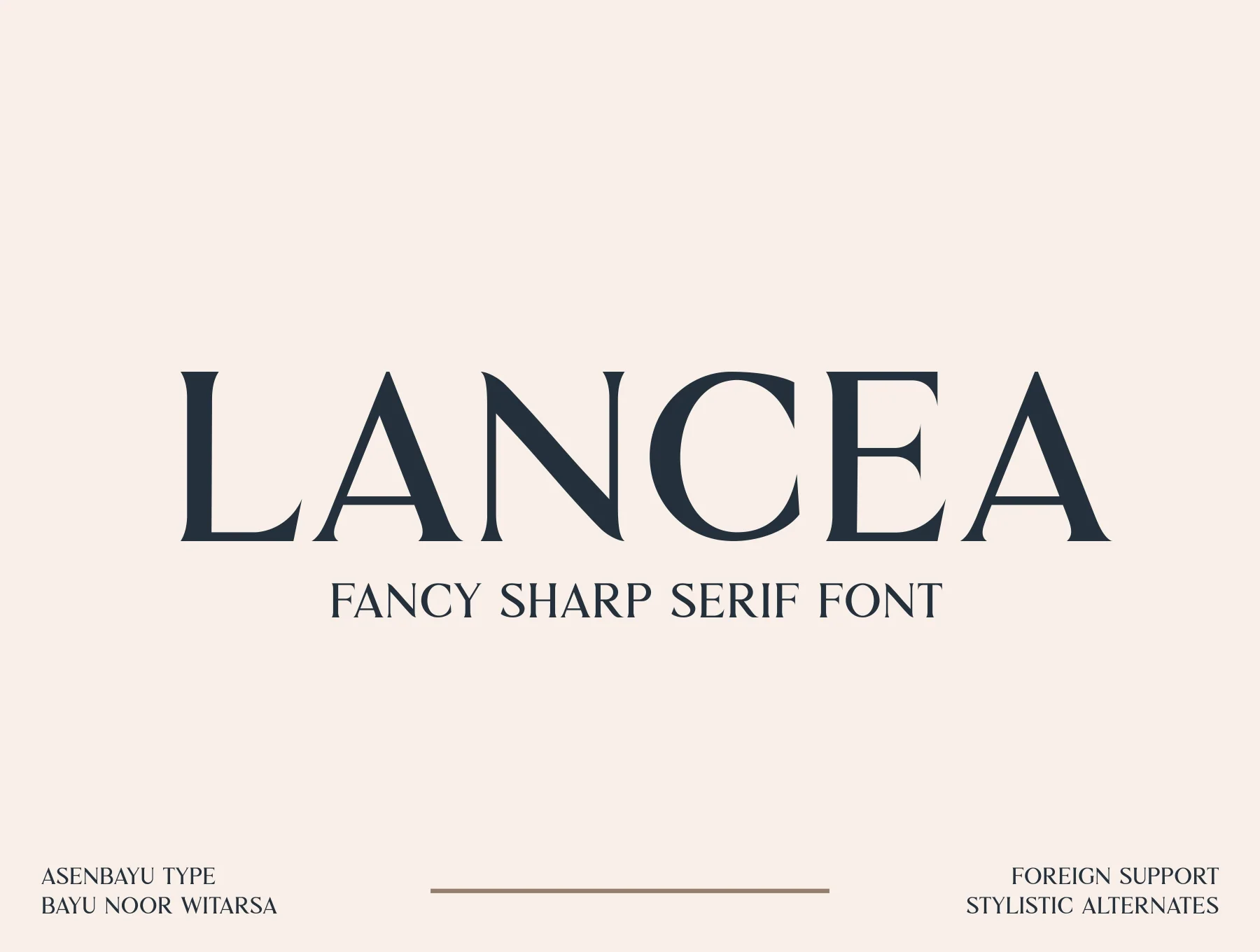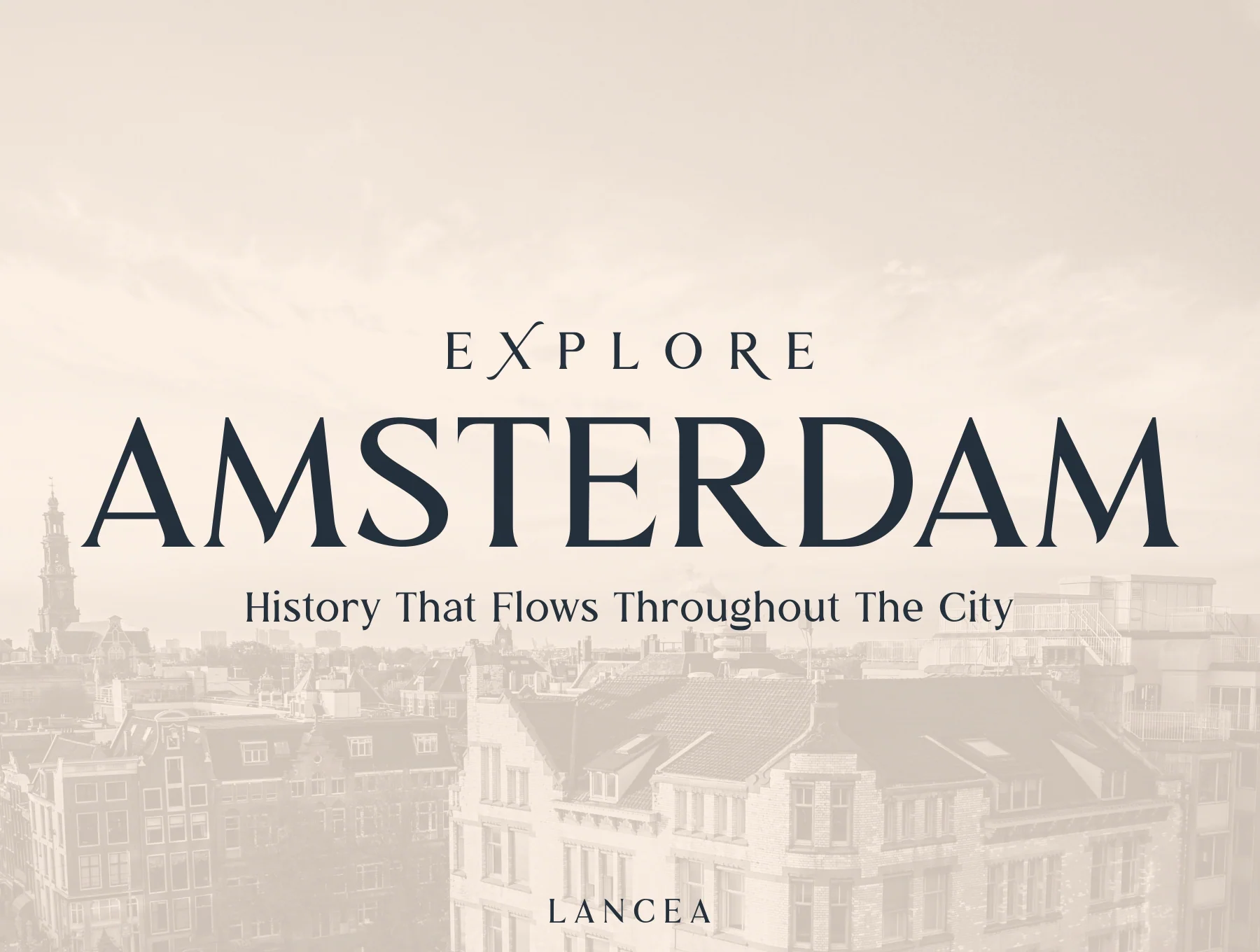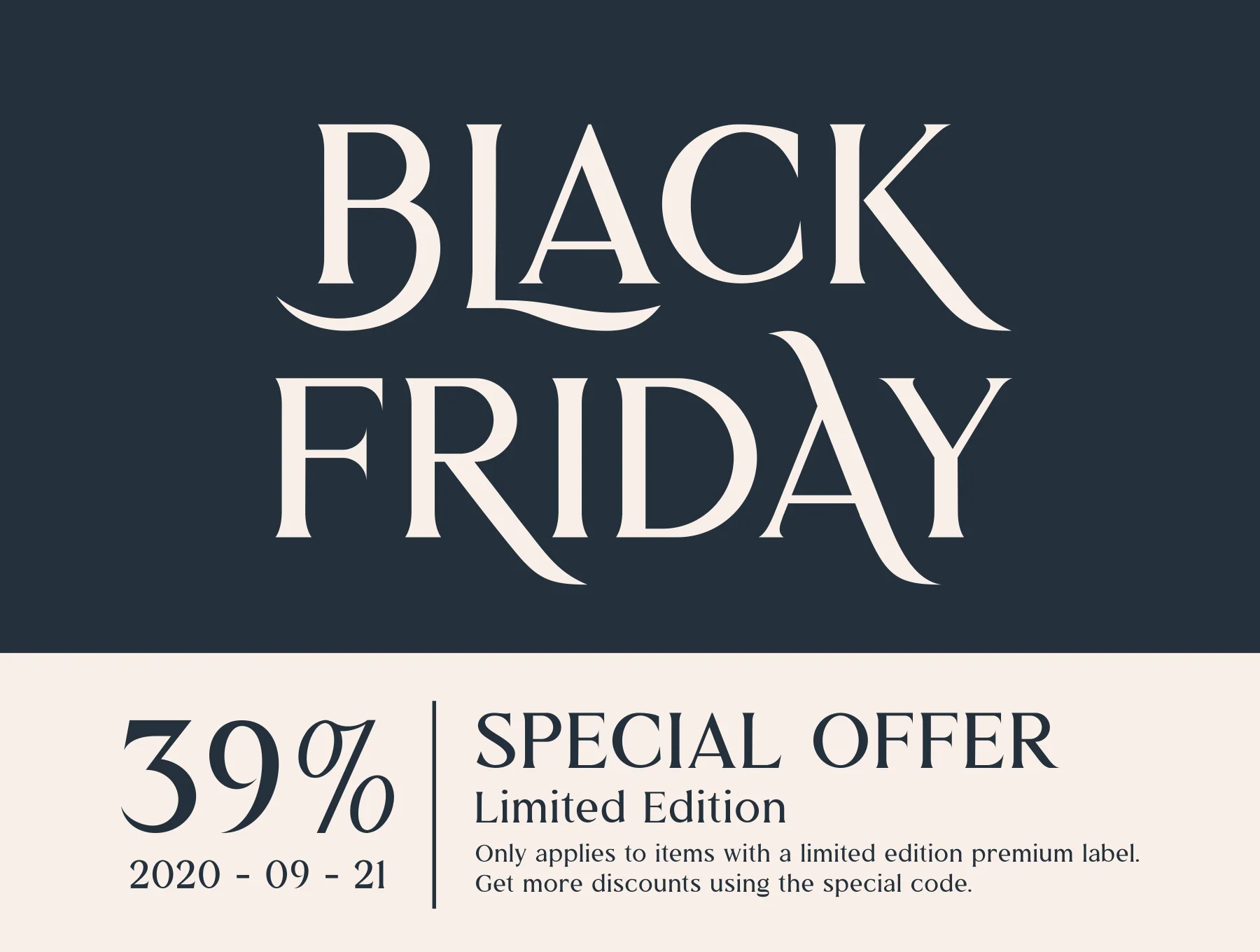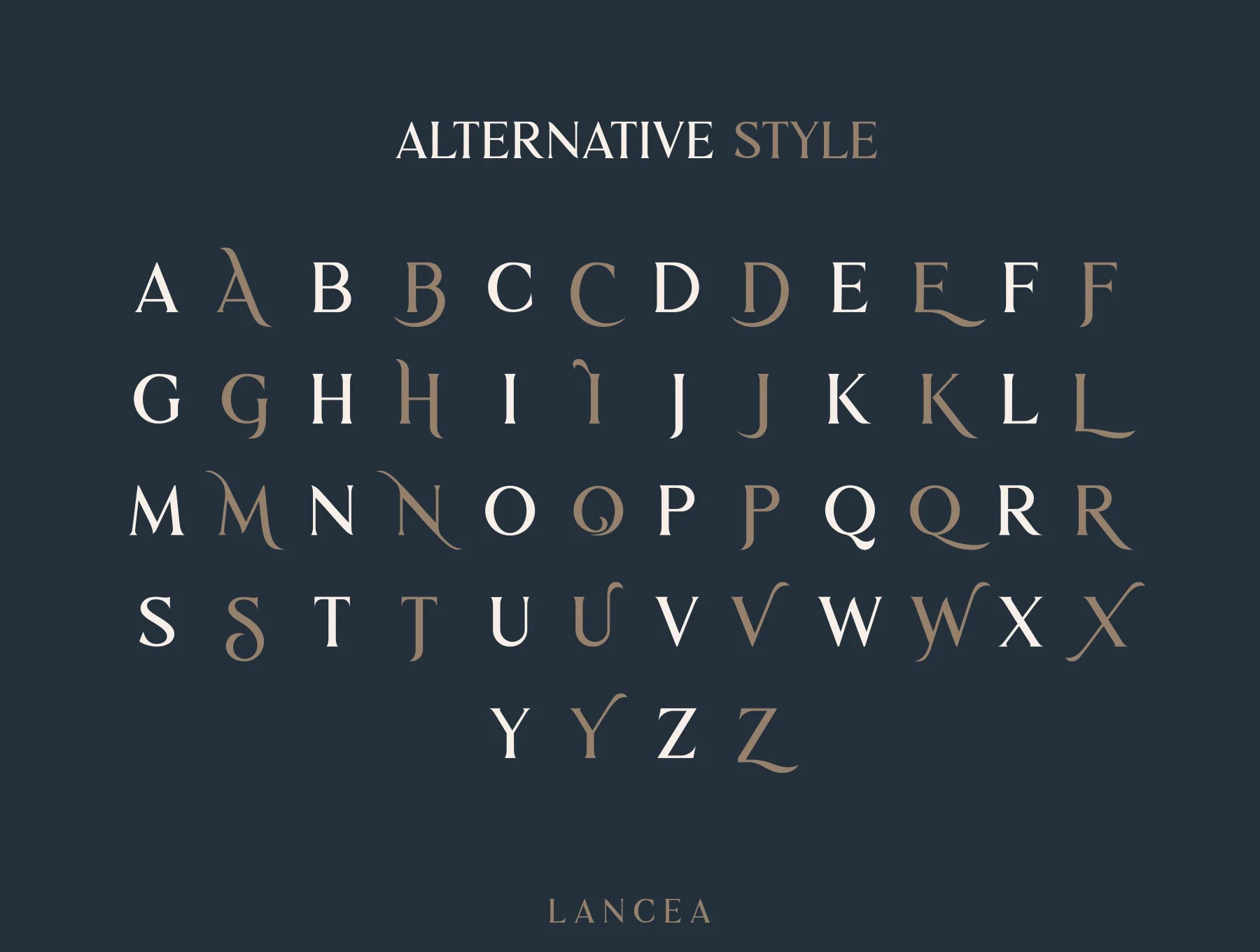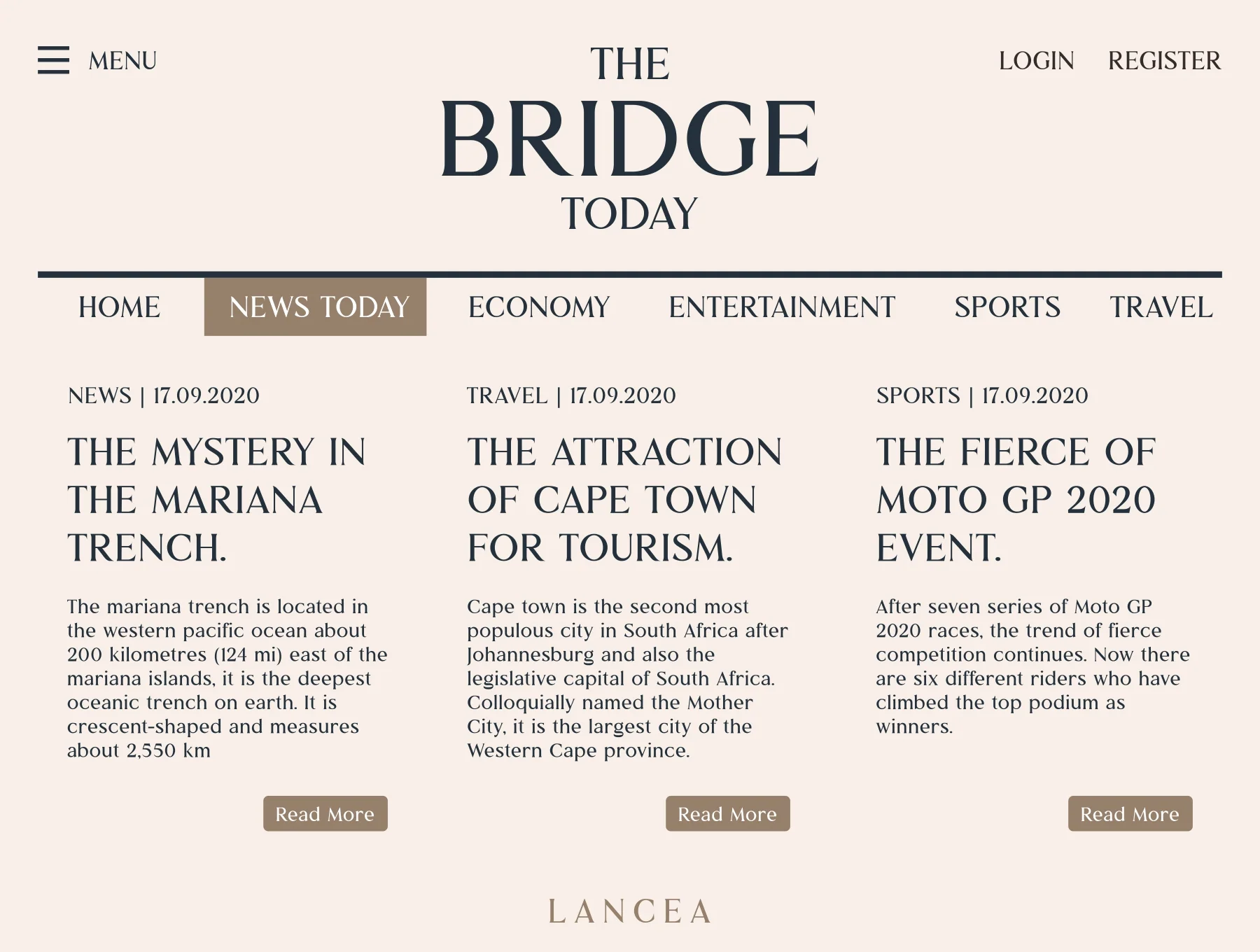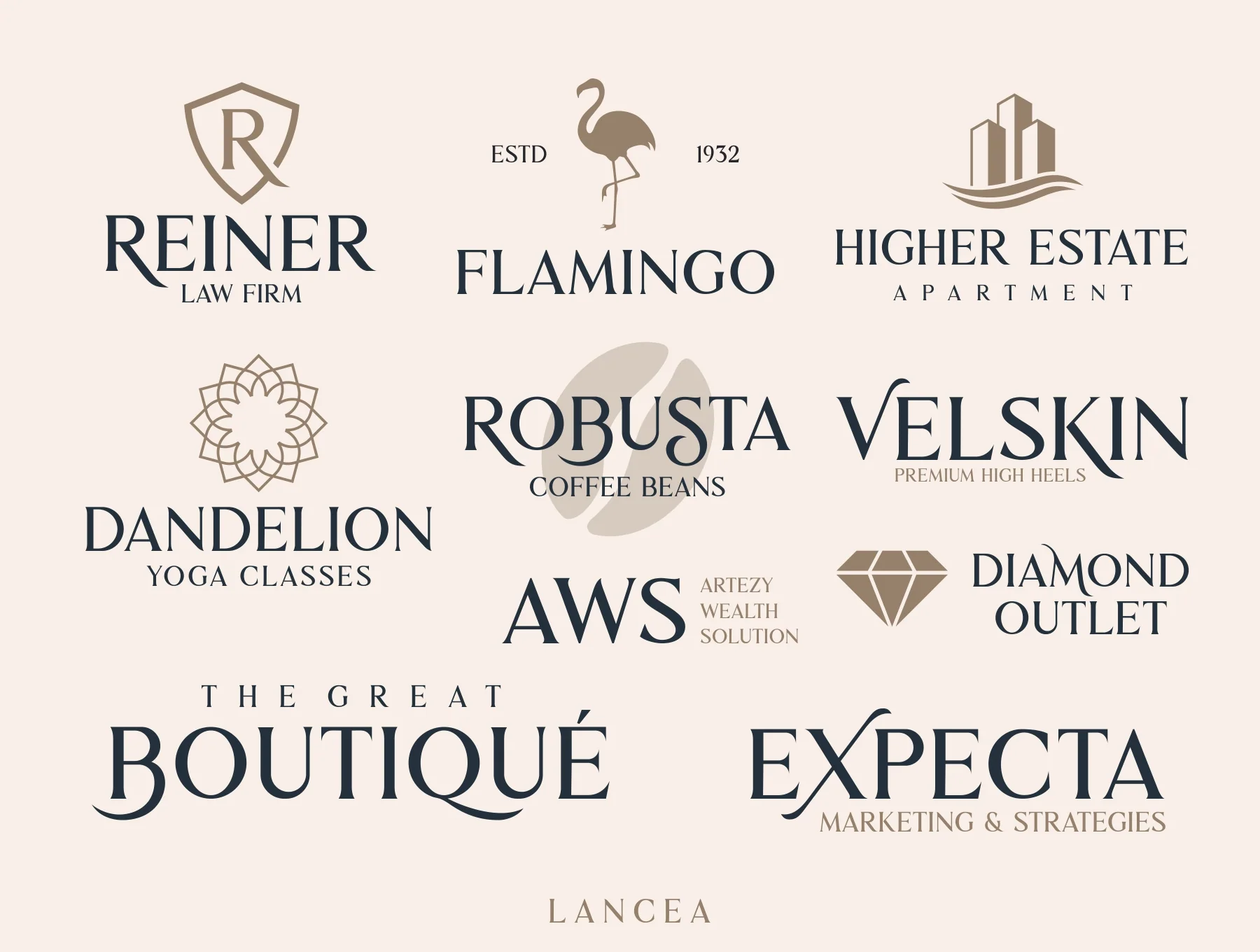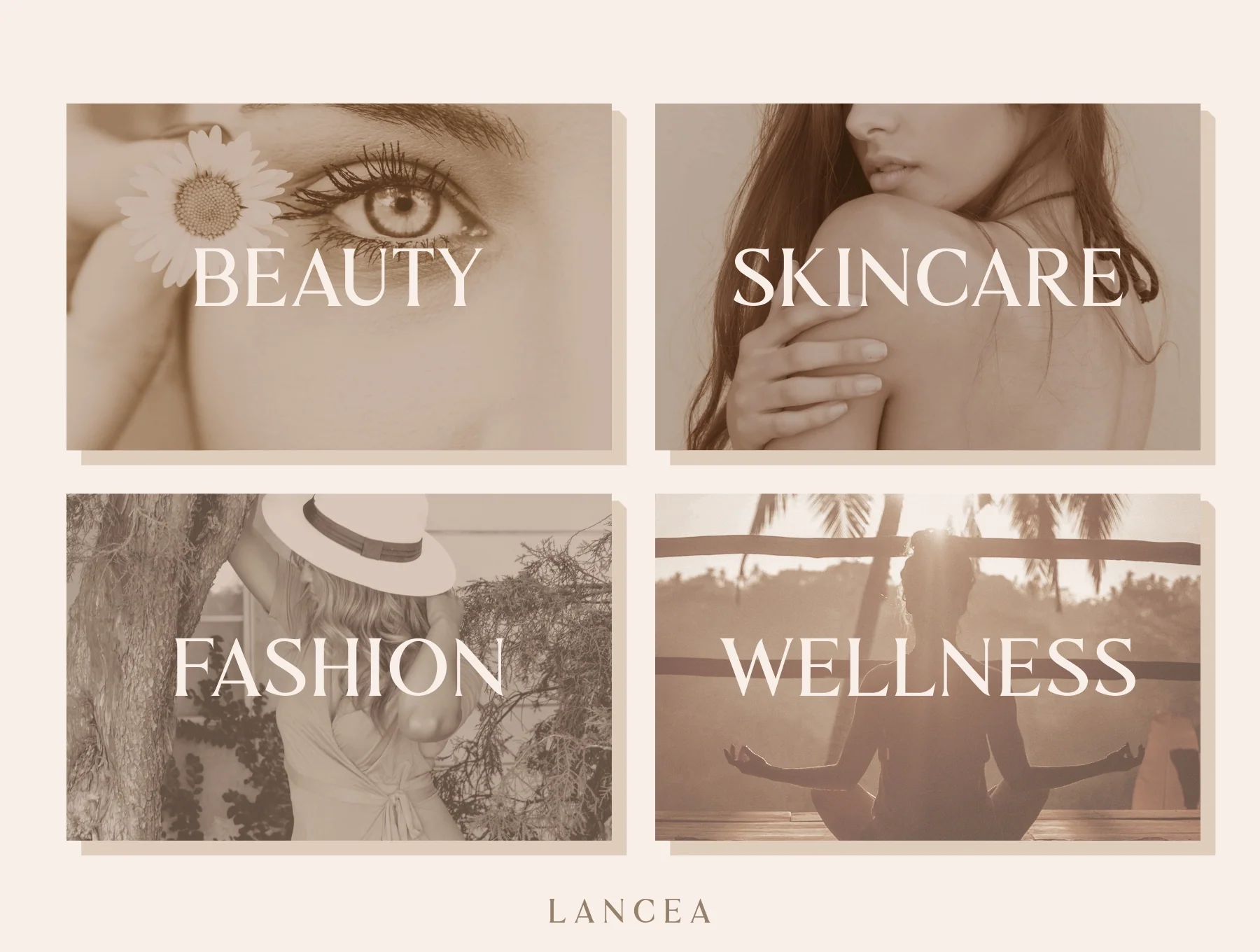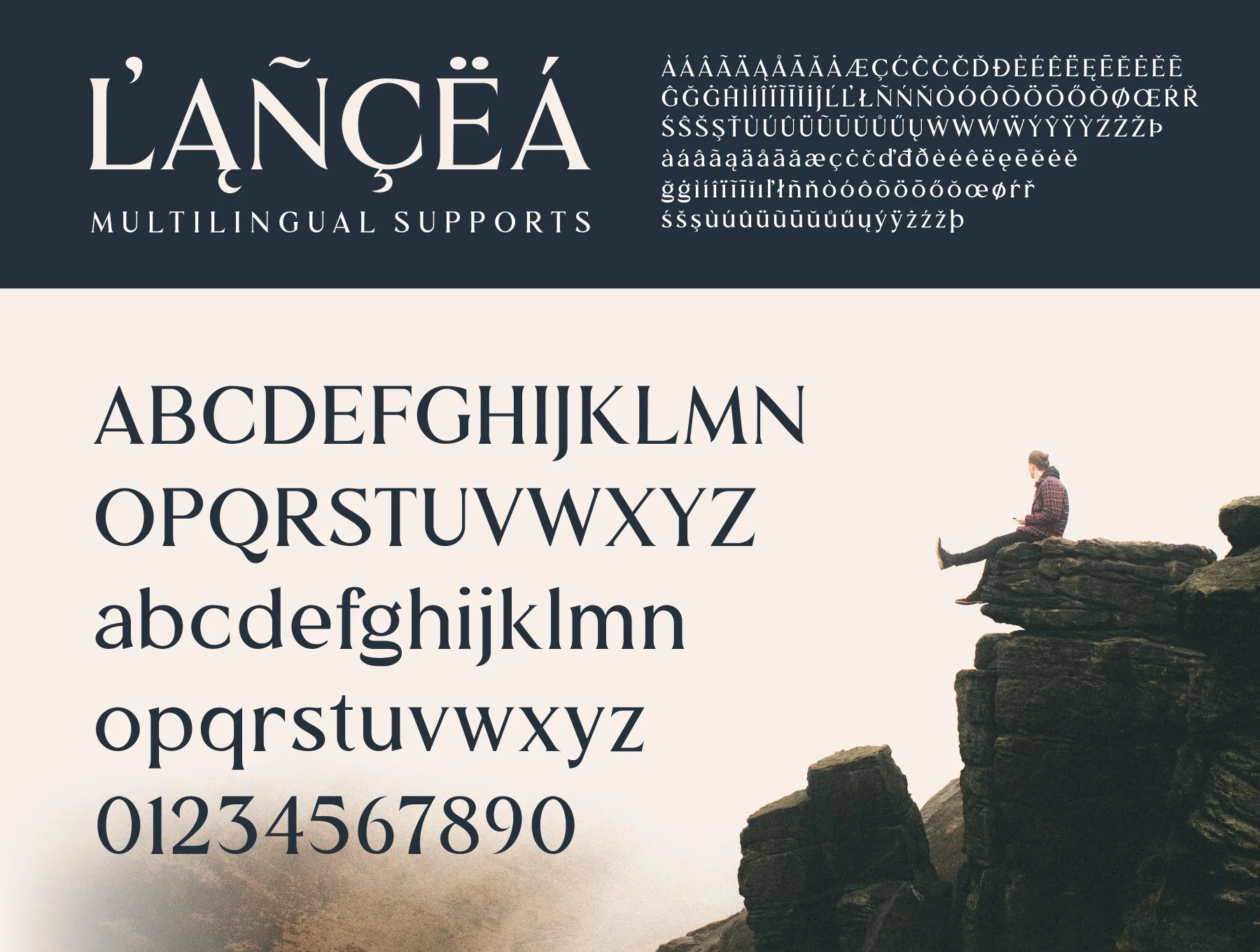
Lancea Font
Elegant Crisp Serif Typeface
Lancea is a refined sharp serif typeface inspired by medieval Roman script and the pointed elegance of a lance. Its clean, sleek letterforms suit luxury logos, journals, cards, headlines, packaging, social media, websites, and other polished designs. Includes OpenType features, kerning, alternates, upper/lowercase, numbers, punctuation, and multilingual support.